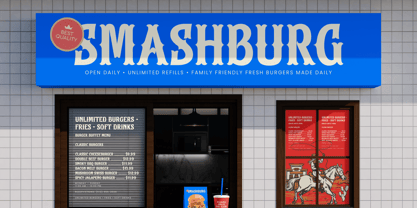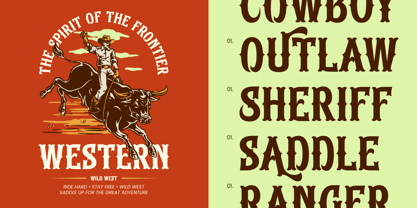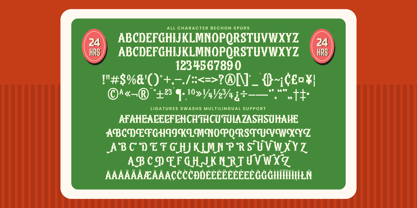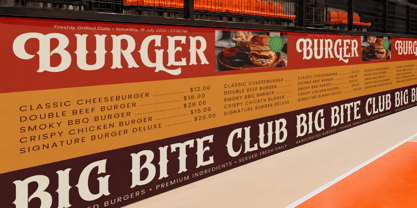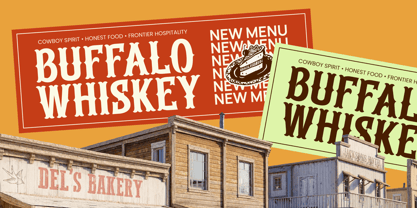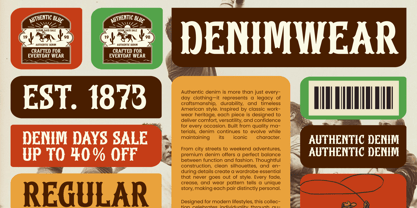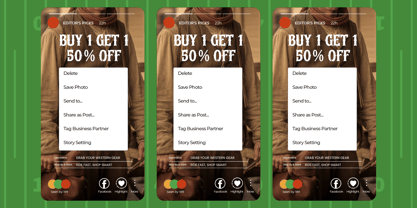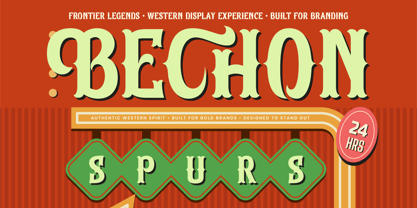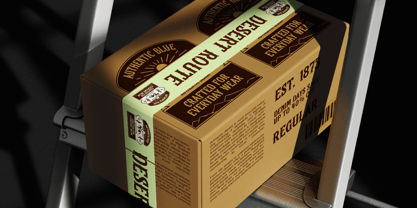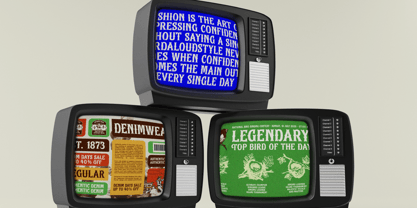
Bechon Spurs
The Bechon Spurs Font Family was designed by Heru Utama Putra and published by Timelesstype Studio. Bechon Spurs contains 2 styles and family package options. More about this family
Embrace the rugged elegance of the frontier with Bechon Spurs, a typeface designed to command attention with every stroke. This font captures the soul of classic Americana, offering a timeless aesthetic that bridges the gap between heritage and modern sophistication.
Inspired by the hand-painted signs of the Wild West and the ornate detailing found on vintage spurs, this collection evokes a sense of nostalgia for the open range and the golden age of American advertising. It carries the dust and grit of a desert sunset, refined into a polished typographic experience.
Designed for maximum branding impact, this modern serif display delivers a powerful visual statement that feels both grounded and elevated. The high-contrast serif details provide a luxury typography feel that is essential for any high-end editorial font project seeking to make a lasting impression.